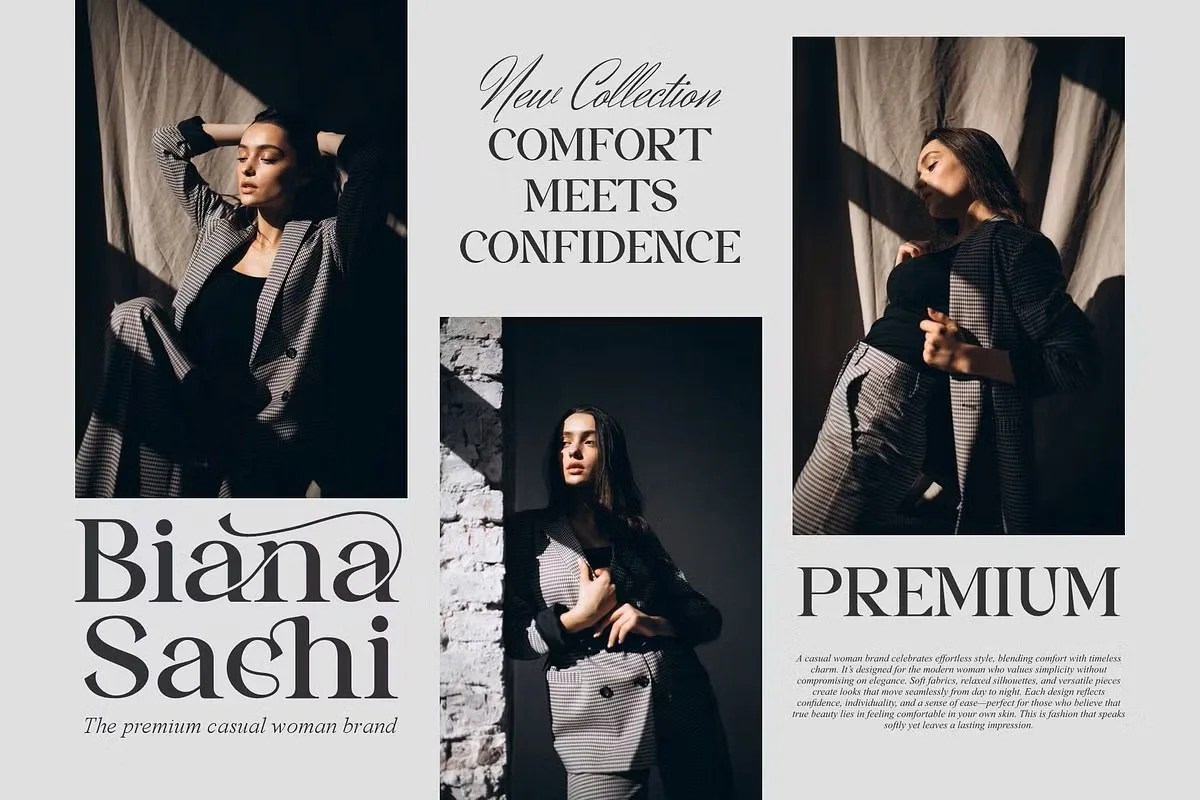
Nelara by Idea Studio. This is a truly minimalist serif font that brings a touch of timeless elegance to any design. It speaks with a soft and sophisticated voice. The font’s delicate details and balanced proportions create a feeling of pure refinement and artistry. Nelara is the perfect choice for projects that require a classic look with a gentle, artistic touch. It elevates your words with its inherent poise.
This font is a natural choice for romantic and elegant projects. Specifically, it is a stunning option for wedding invitations and stationery suites. It sets a tone of classic beauty right away. Furthermore, this beautiful serif font is ideal for luxury branding. Imagine it on the packaging for a boutique perfume or a fine jeweler. Its refined character communicates quality and sophistication effortlessly. Use it for editorial headlines or book covers to add an instant touch of class.
• Graceful and minimalist serif style
• Features delicate serifs and fine details
• Ideal for invitations, luxury branding, and editorials
• Adds a timeless and sophisticated touch
Nelara